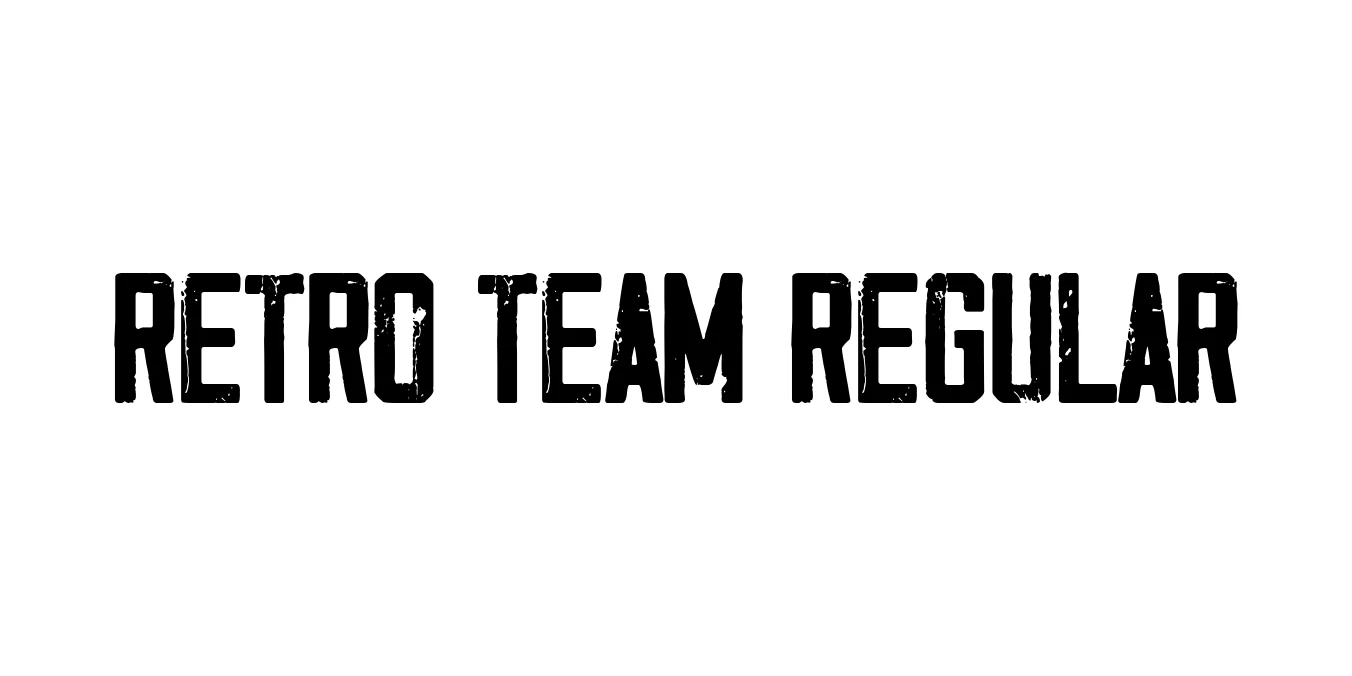
Retro Team Regular
Designed by Saji Studio
Retro Team Regular is a classic display font inspired by vintage sports aesthetics and 1970s typography. Its bold, thick strokes and rounded terminals evoke a sense of deep nostalgia, making it an ideal choice for collegiate branding, athletic apparel designs, and heritage-style projects. The font balances a heavy weight with approachable curves, capturing the essence of mid-century American design.
This typeface excels in modern contexts that require a retro-modern aesthetic. Whether utilized for heavy-hitting headlines, intricate logo design, or editorial layouts, its strong character presence ensures high visibility and readability. It is particularly reminiscent of old-school team jerseys and varsity jackets, providing a timeless look that resonates with audiences seeking a vintage feel.
Retro Team Regular Best Uses
Ideal for varsity-style logos and athletic team identities.
Perfect for t-shirts, sweatshirts, and vintage-themed clothing lines.
Works exceptionally well for eye-catching event announcements and retro-themed marketing materials.
Adds a bold, nostalgic touch to high-impact Instagram graphics and website headers.